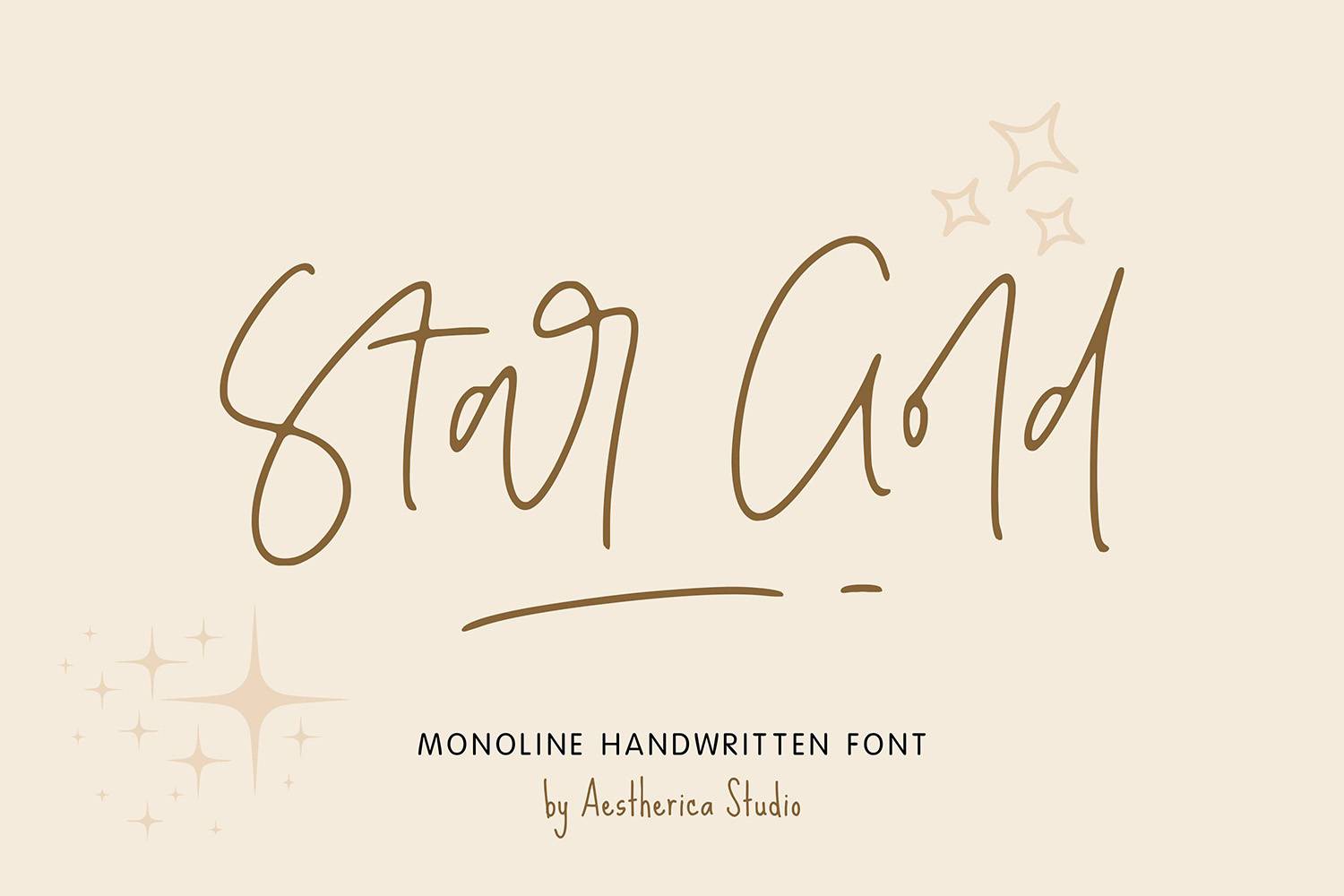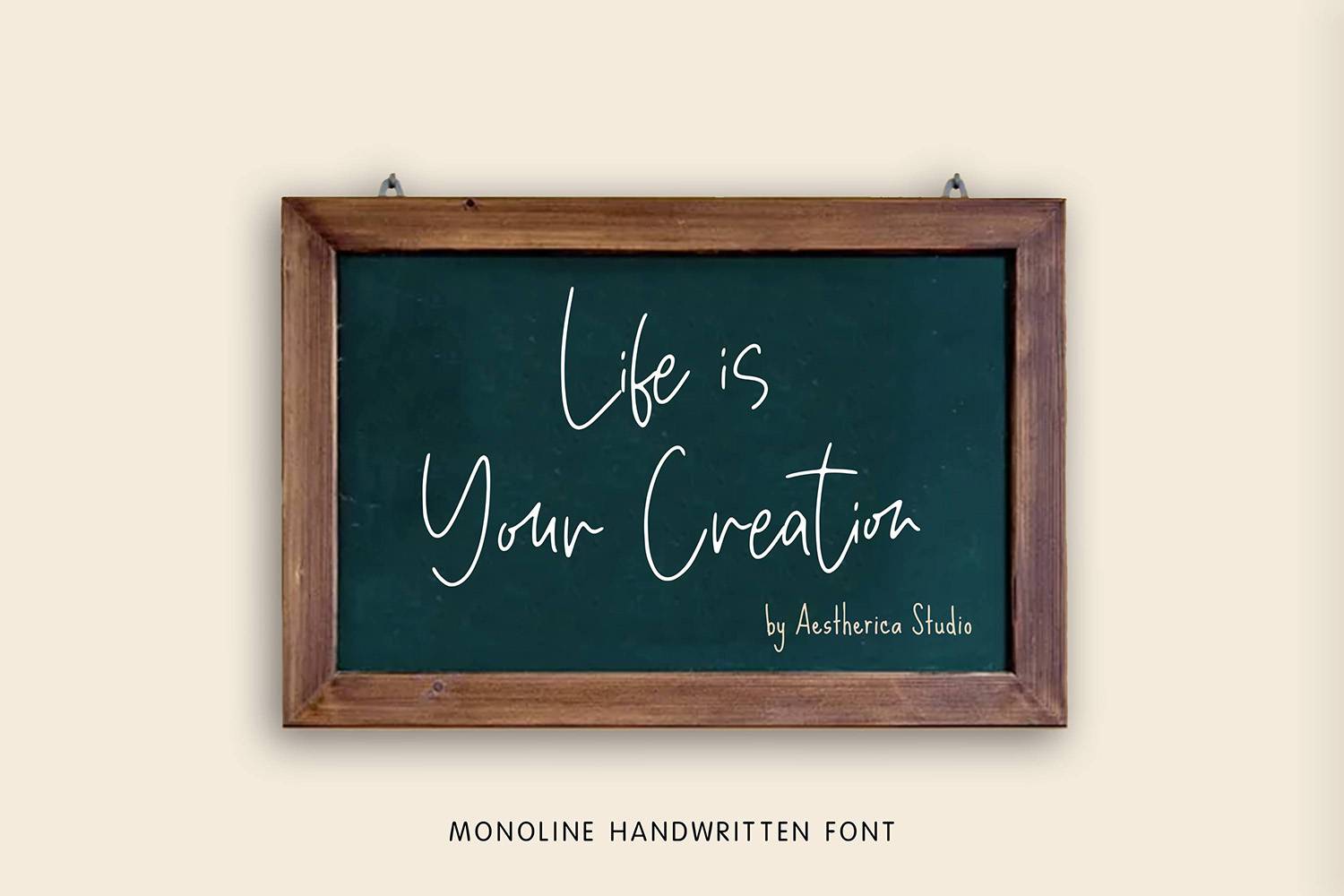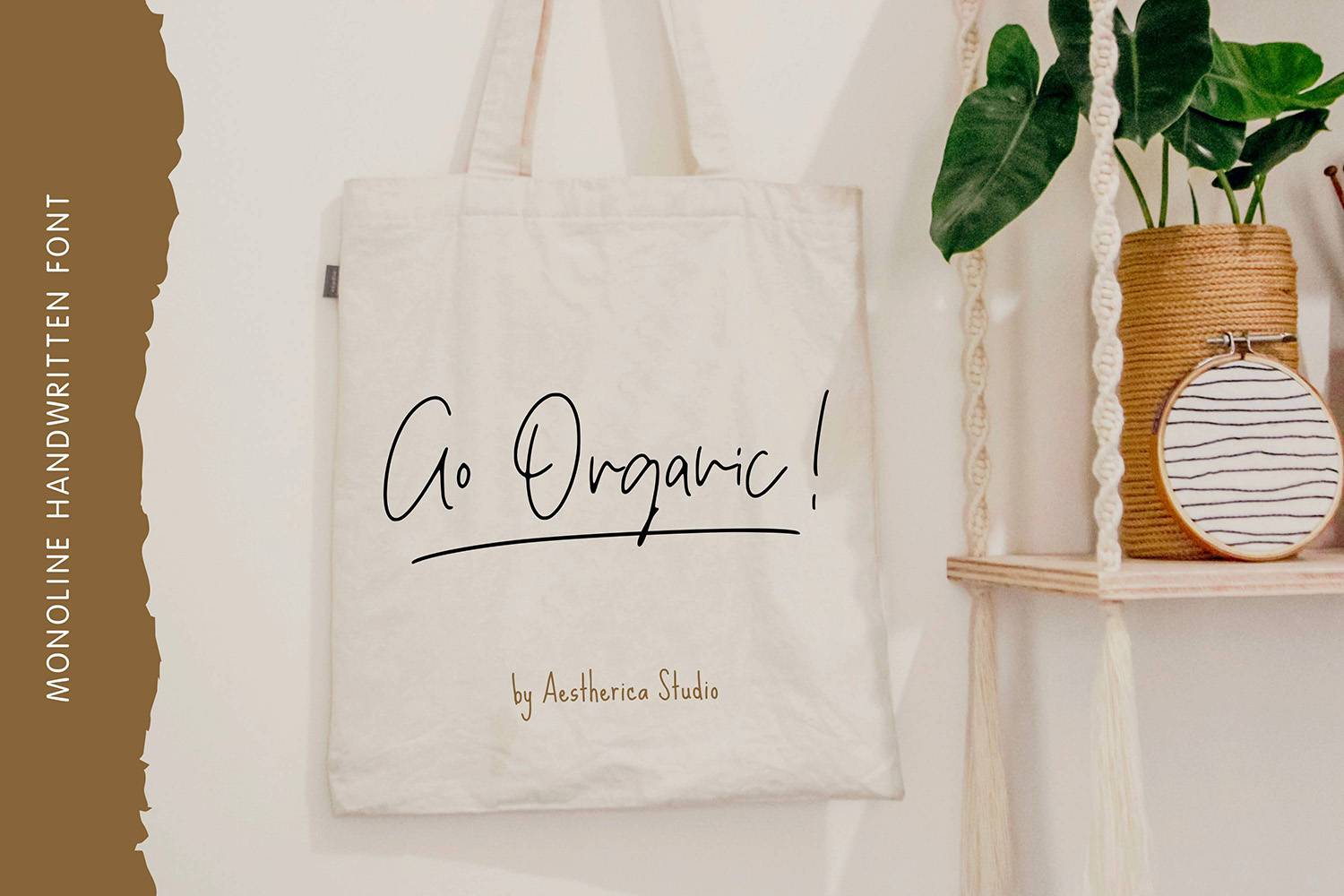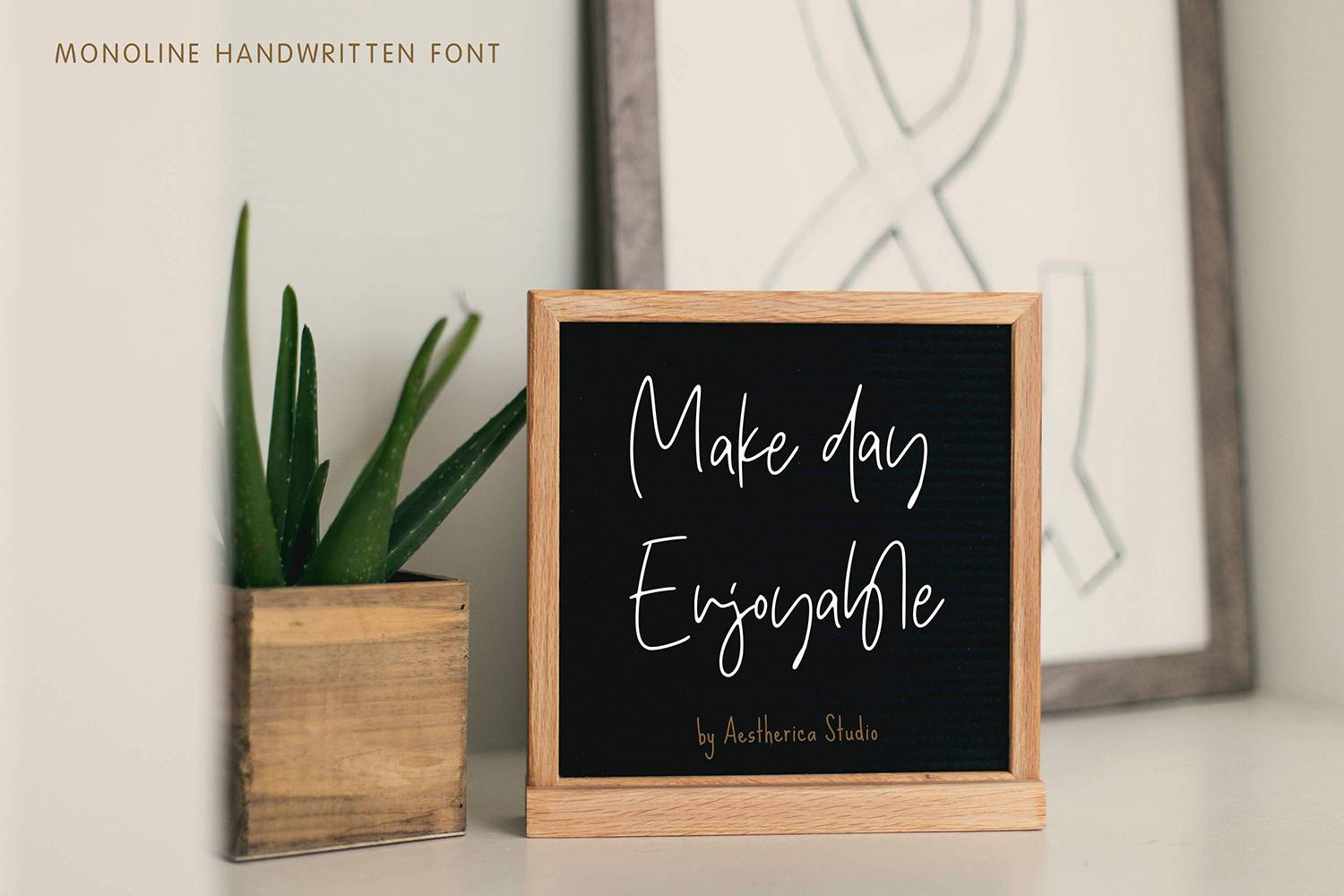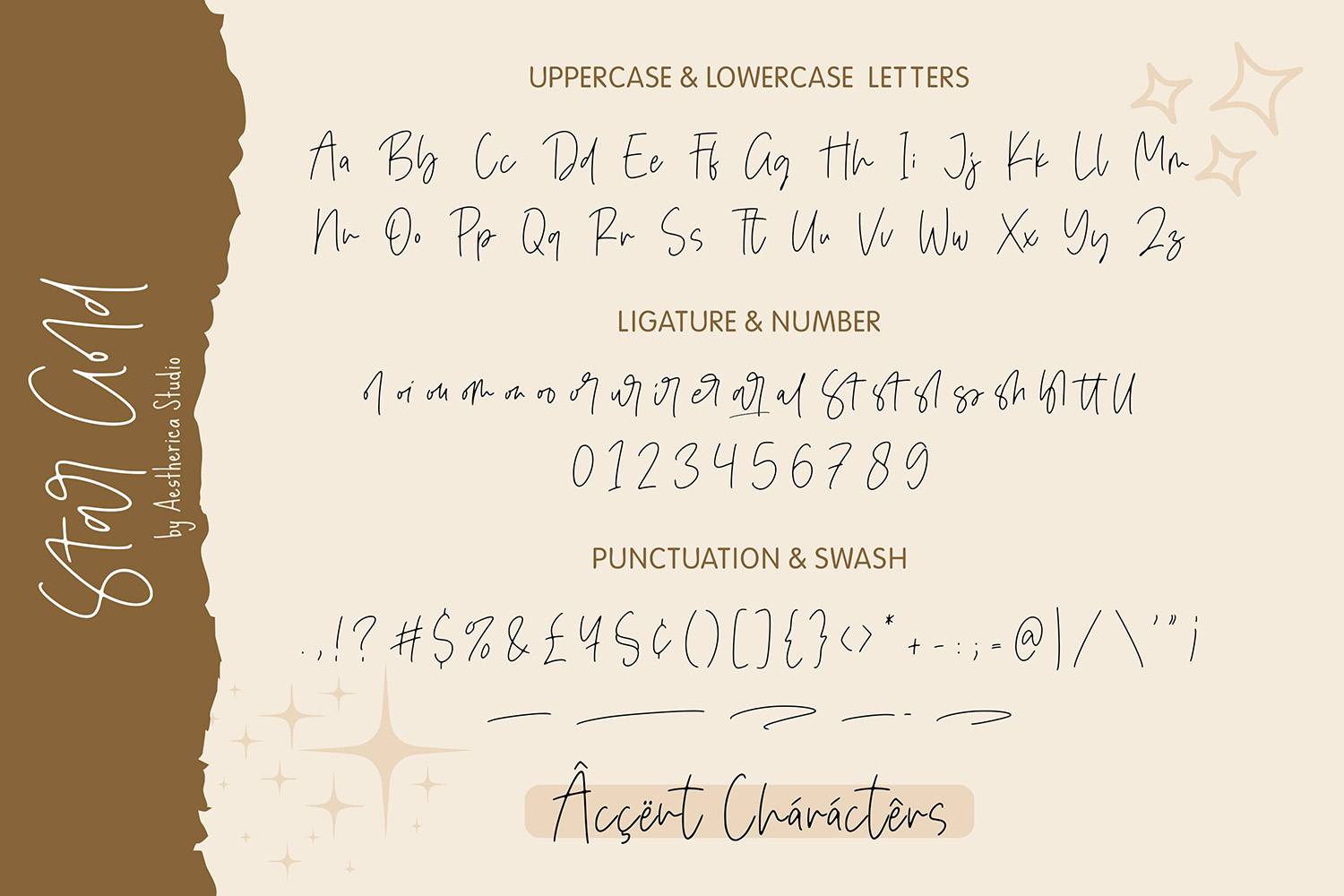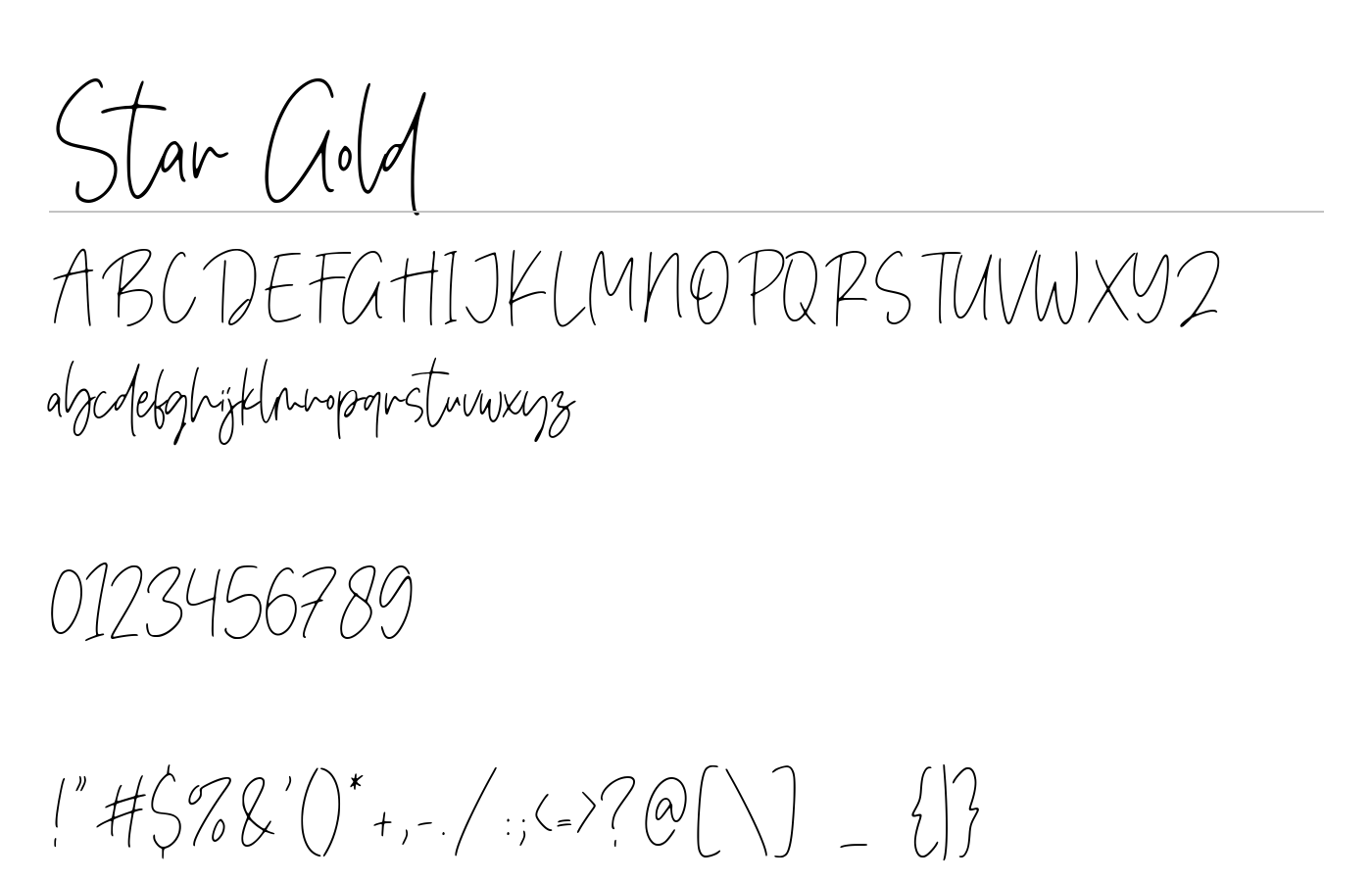
Star Gold is a delicate, hand-drawn script font with a light and airy feel, featuring slender, elongated letterforms that convey elegance and modernity. Its casual, whimsical style makes it perfect for creative projects, fashion branding, and personal invitations where a touch of sophistication and friendliness is desired. This font works best in headlines and decorative text, adding a unique, artistic flair without overwhelming the design.
Star Gold Font